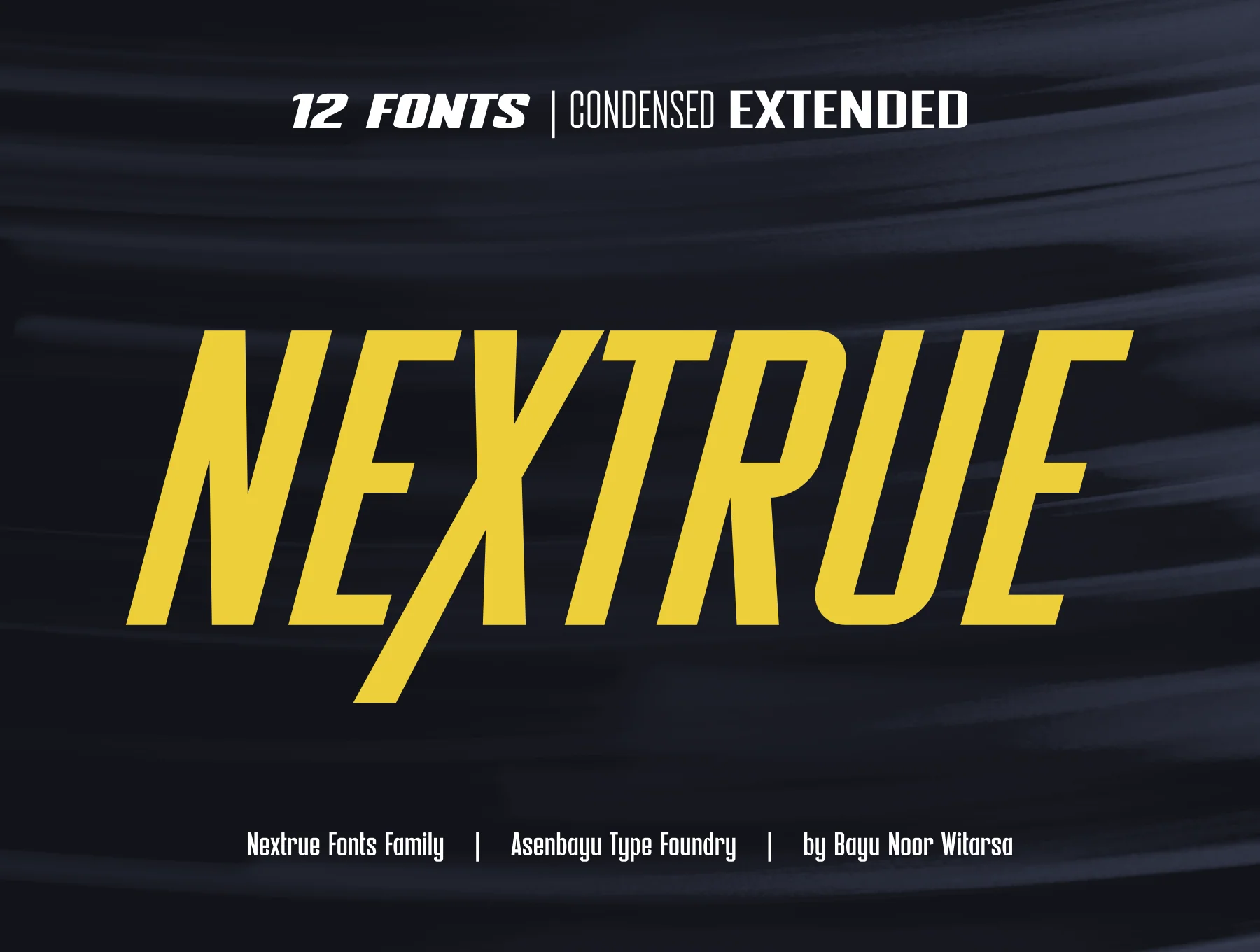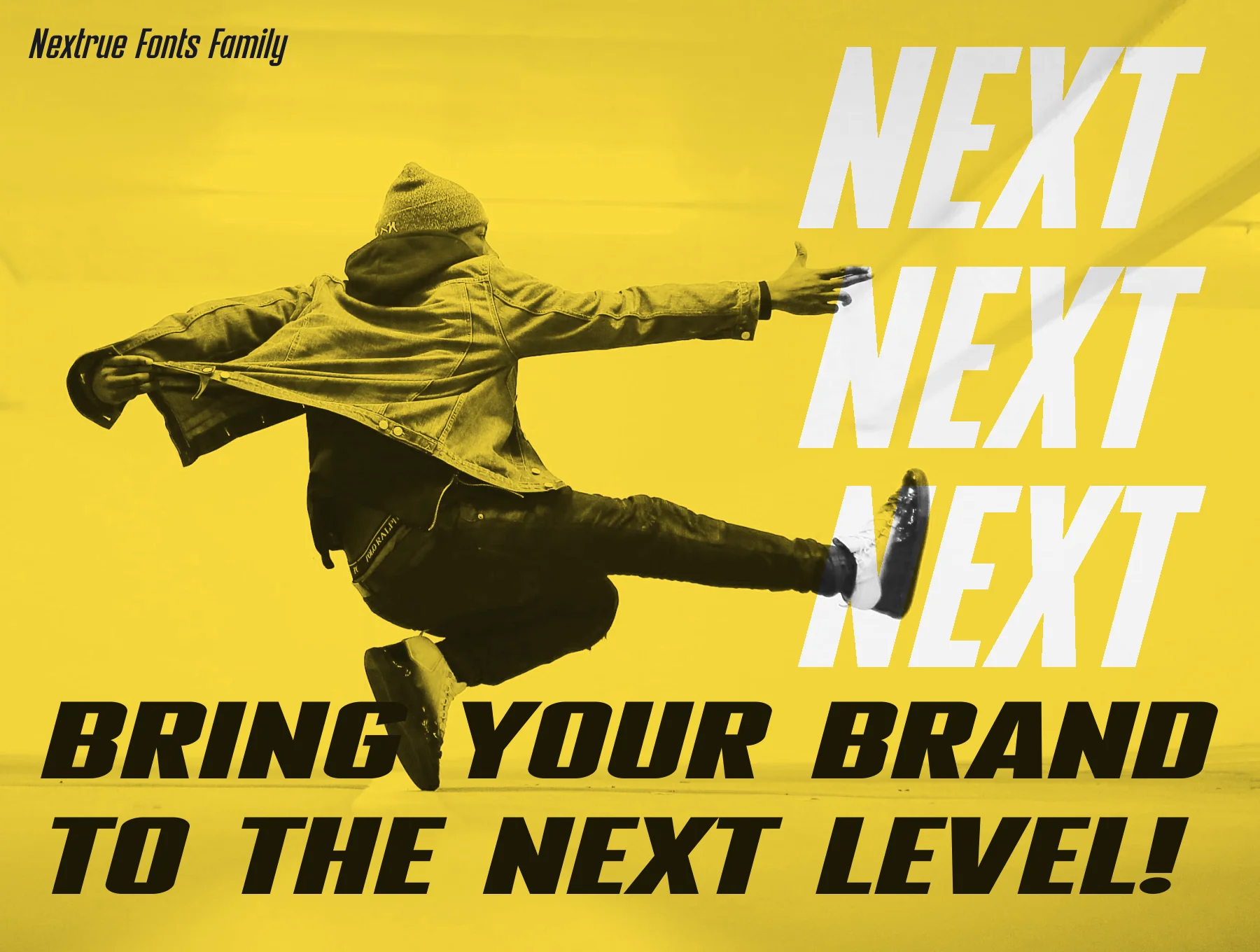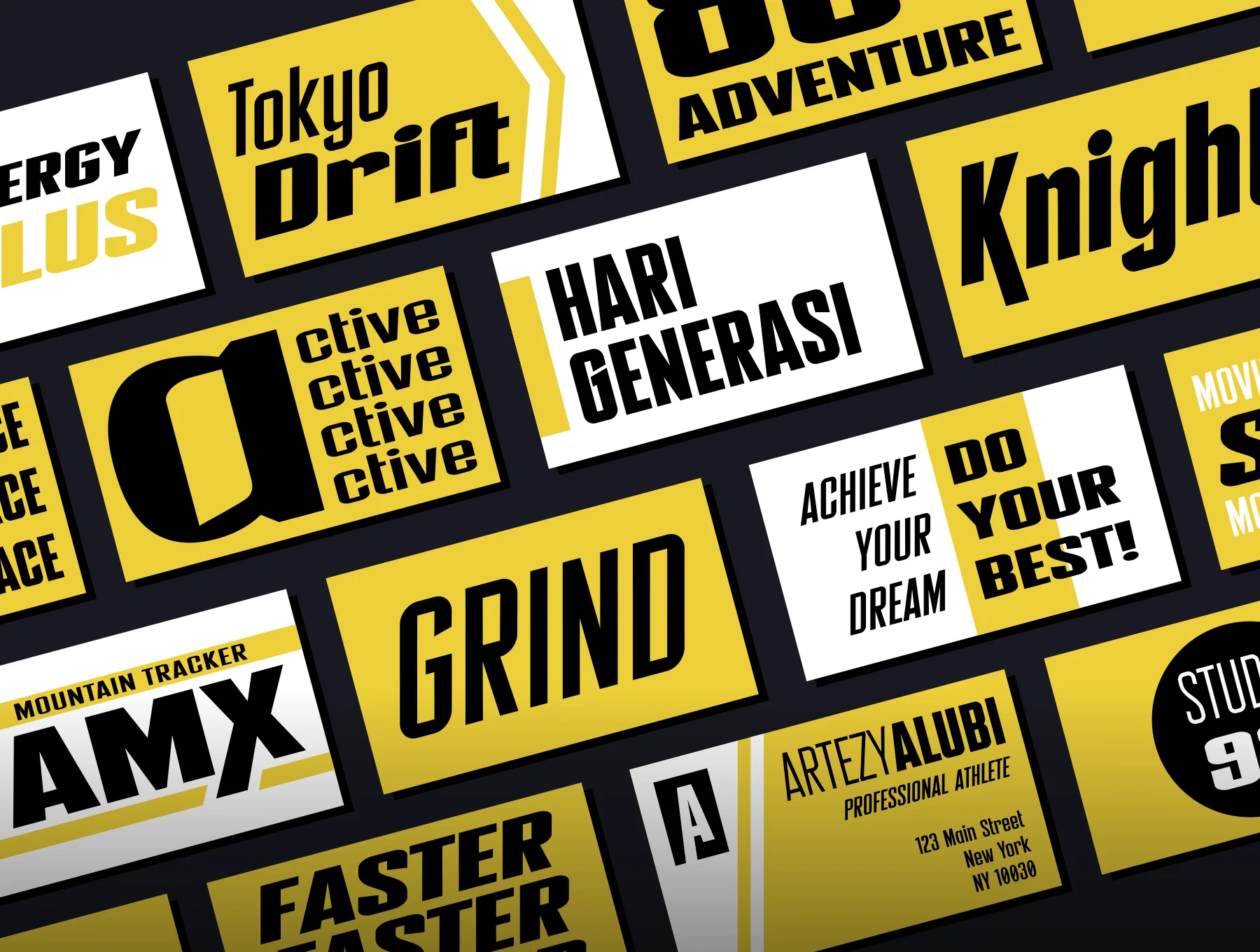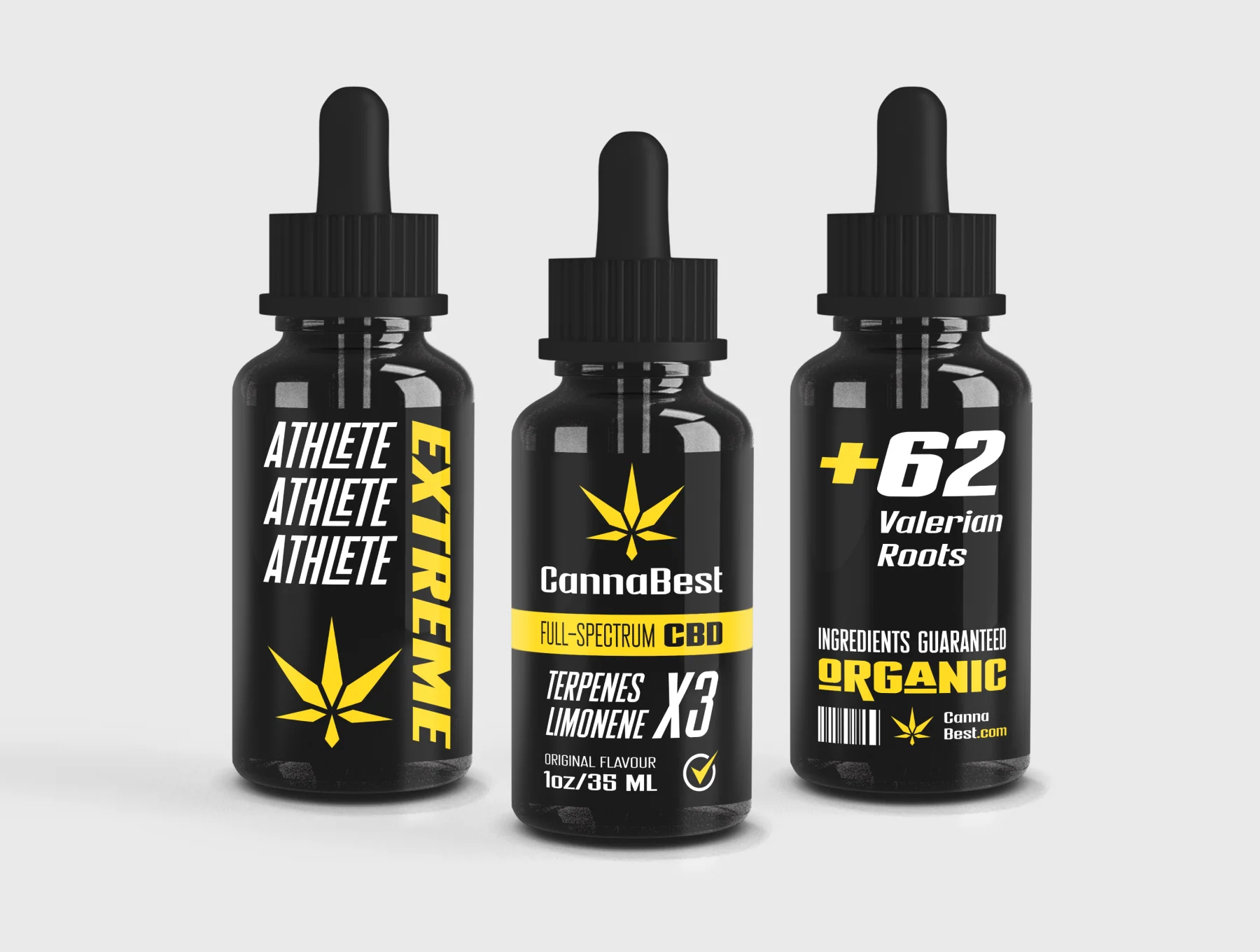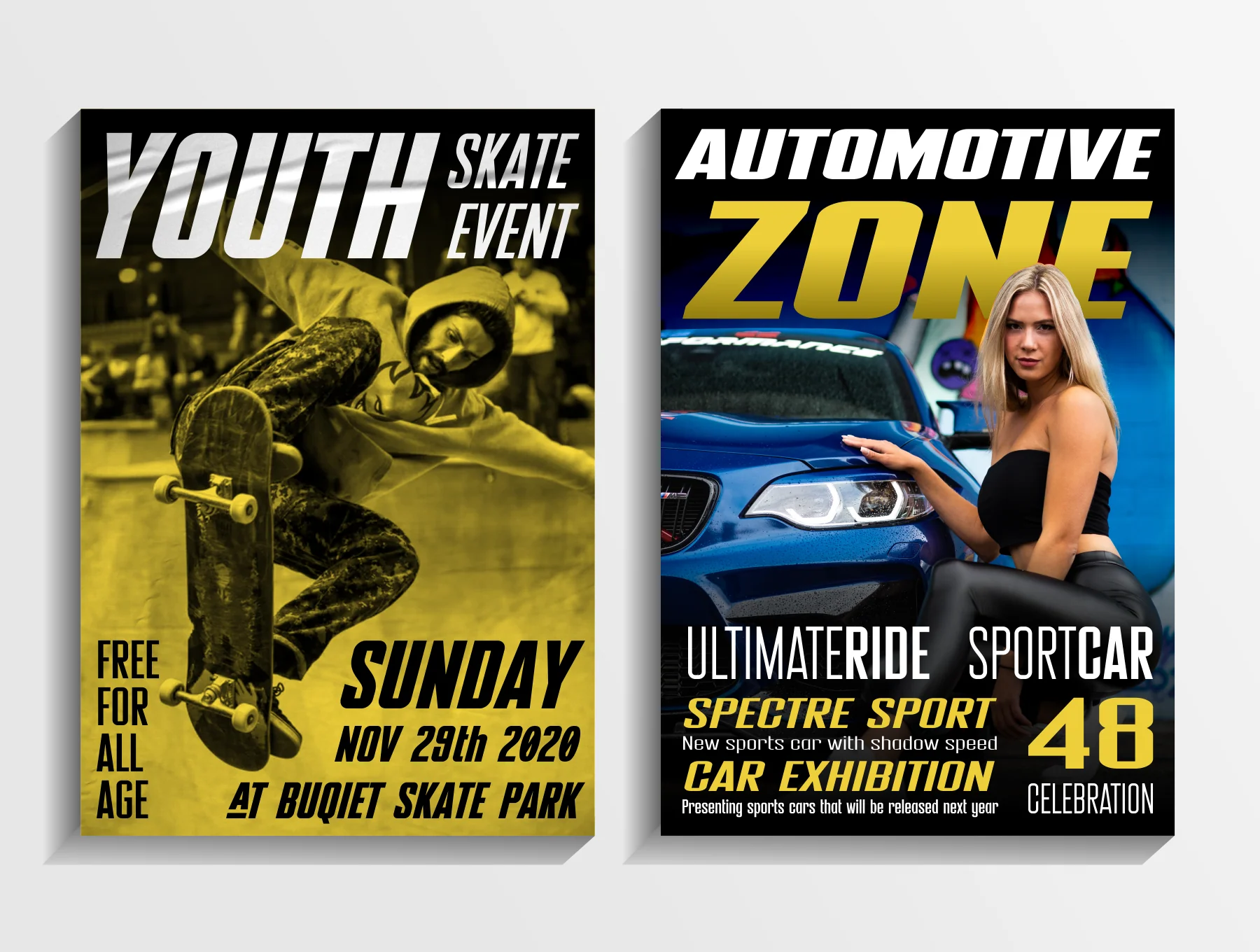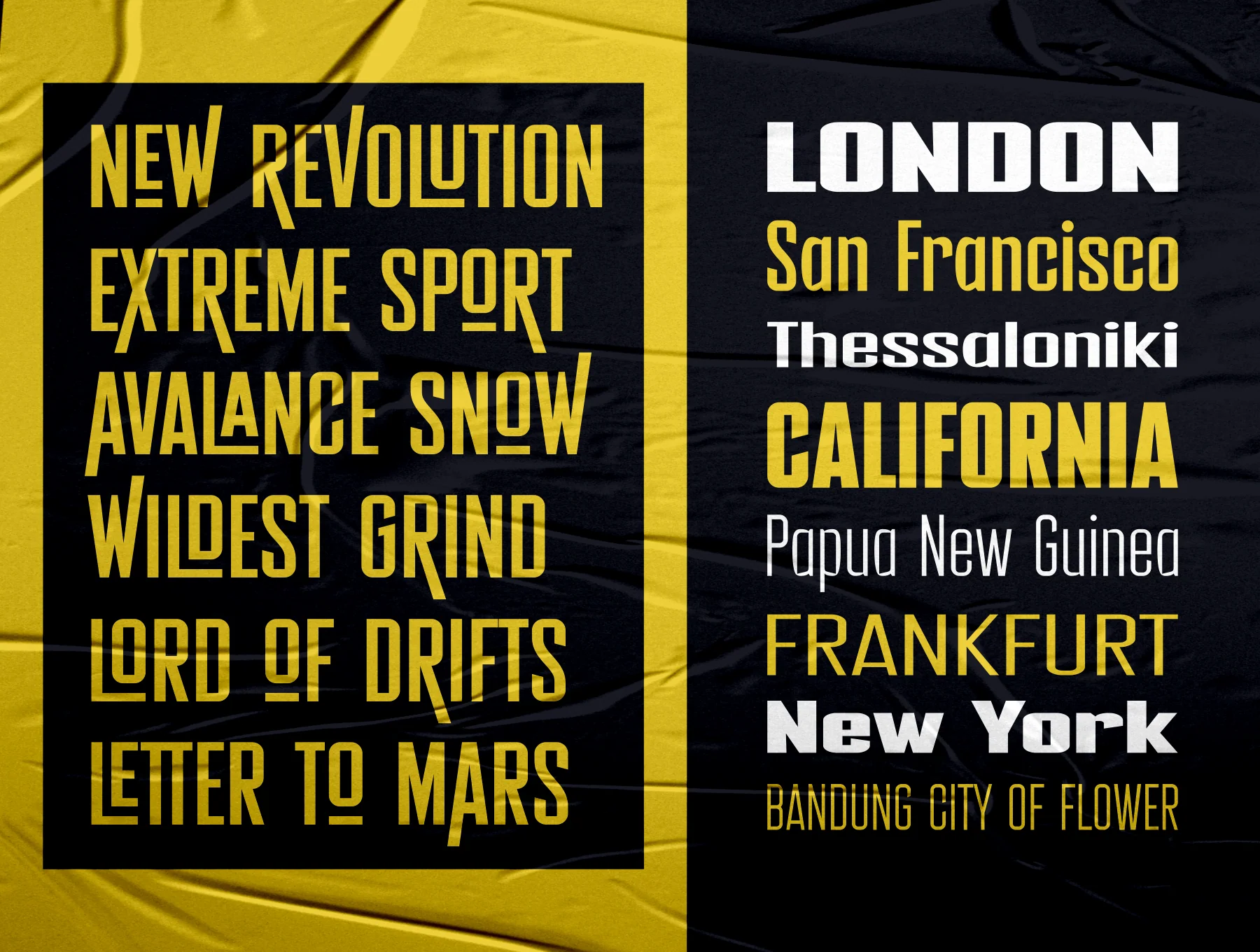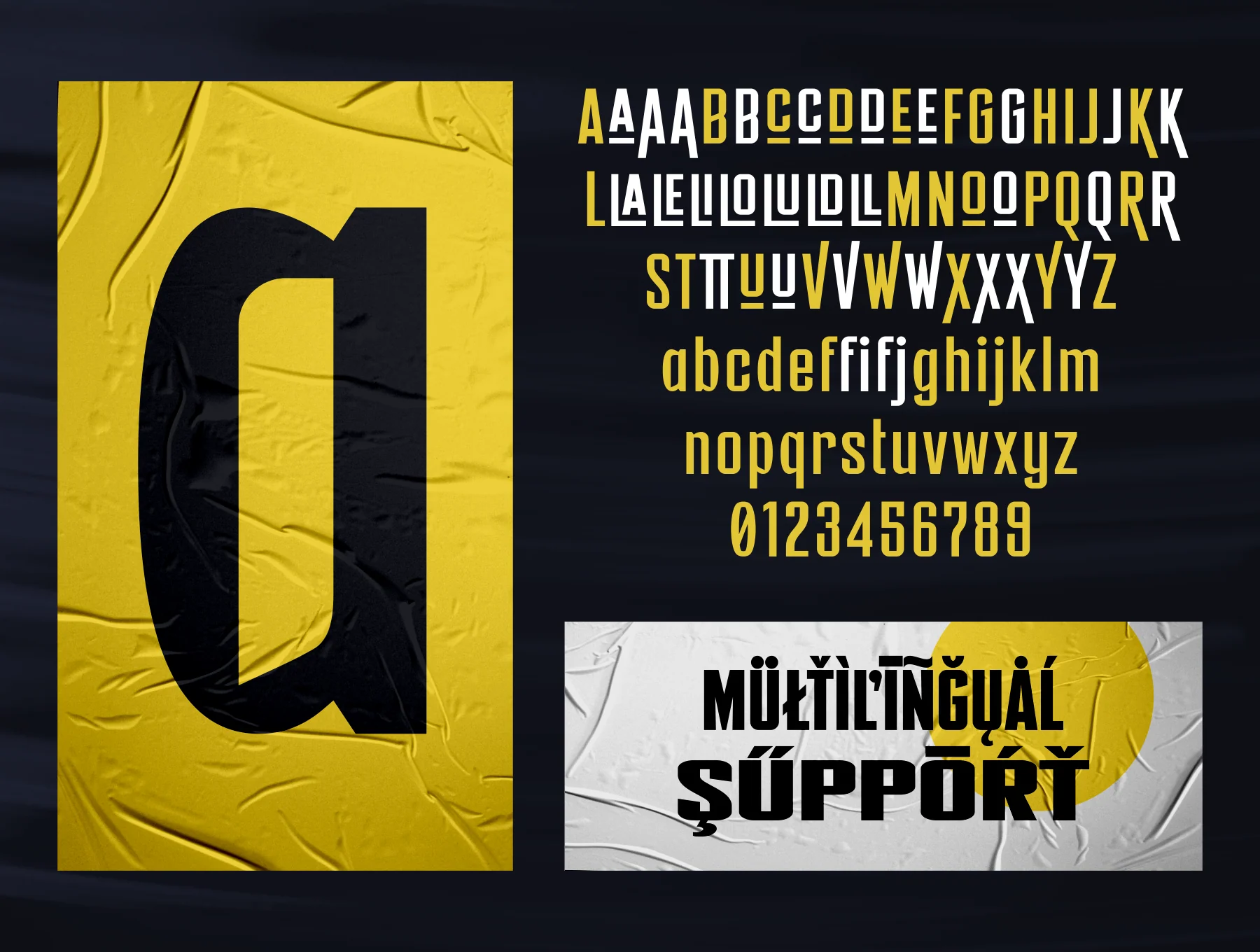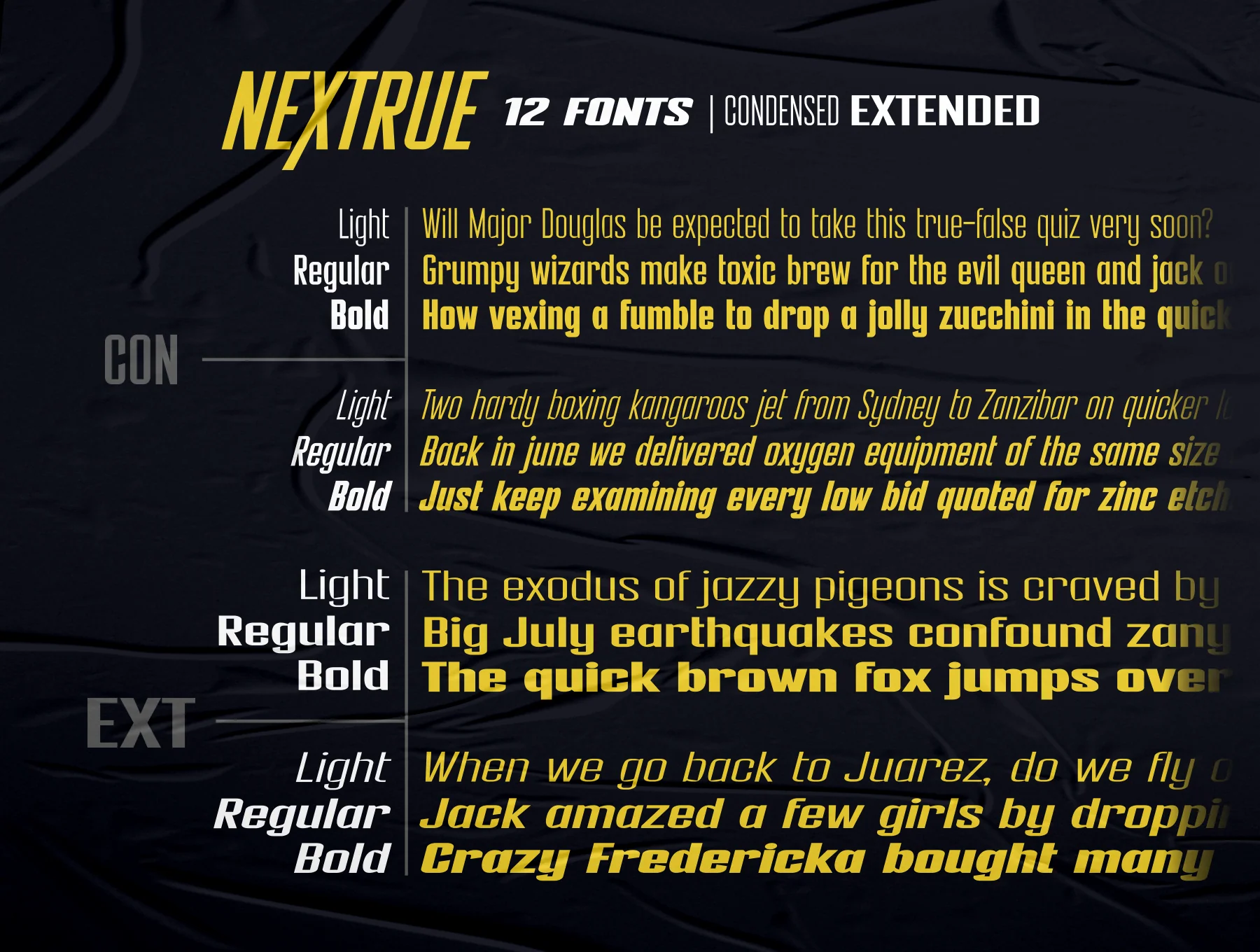
Nextrue Fonts Family
Contemporary sleek display typeface with 12 styles
12 type styles
Default glyph design
Stylistic variants and ligature options
Support for several languages
Nextrue is a sporty, streamlined sans serif built for versatile professional use, with bold upright forms and energetic slanted styles. Ideal for youth-focused visuals, outdoor themes, hobbies, sports, branding, posters, logos, covers, labels, apparel and more. The family includes 12 OTF fonts in Condensed, Extended and Slant variants, plus kerning, ligatures, alternates, full cases, numerals, punctuation and multilingual support.